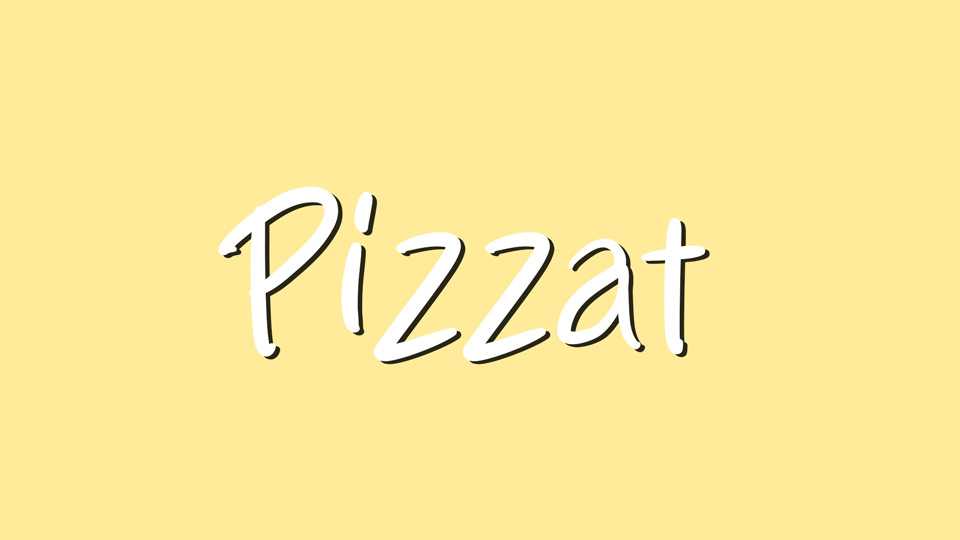
Download Pizzat font, a dynamic, natural handwritten font designed to bring good vibes. Whether you need it for posters, quotes, personal branding, or social media and blogs, Pizzat font is the perfect choice for a truly authentic look.